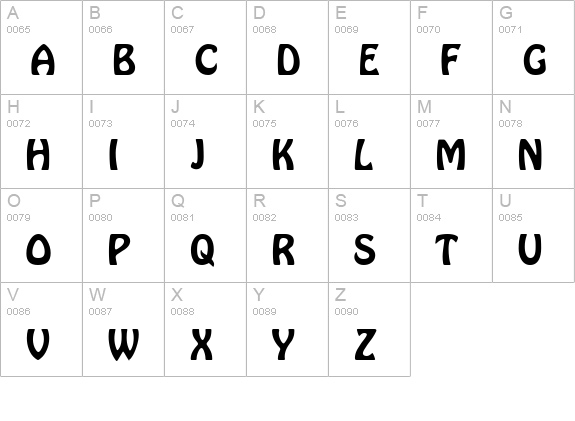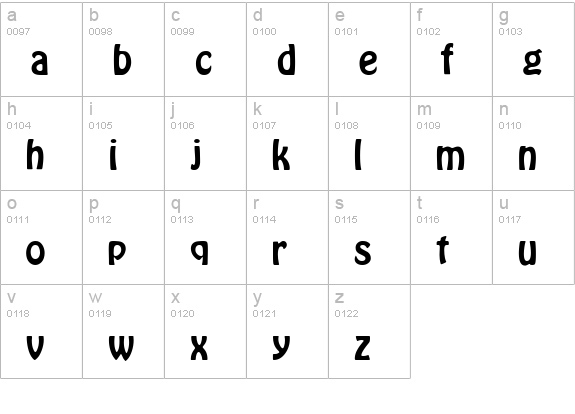
Hobo Regular is the standard, neutral variant in the Hobo typeface family \xE2\x80\x94 well suited to general body text, paragraphs, and standard typographic work.
Hobo Regular font is a charming and quirky typeface that exudes a sense of individuality and whimsy. With its rounded edges and playful letterforms, this font is perfect for adding a touch of personality to any design project. Whether you're creating posters, invitations, or branding materials, Hobo Regular will infuse your work with a sense of fun and creativity. The best part? Hobo Regular font is available for free download at FontsMarket.com. That's right, you can easily access this delightful font without any cost. So go ahead and unleash your creativity with Hobo Regular - the perfect choice for those looking to make a statement with their typography.